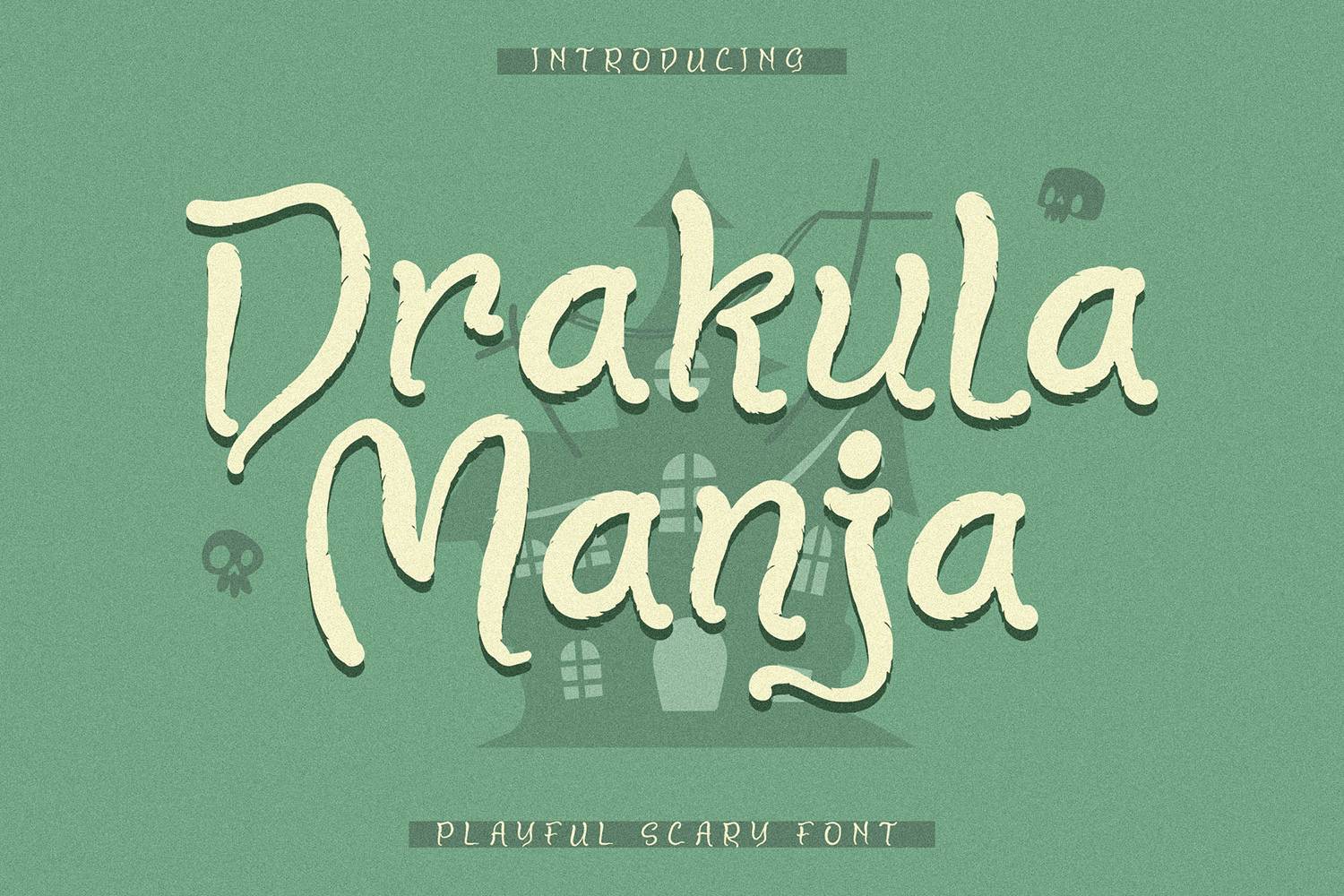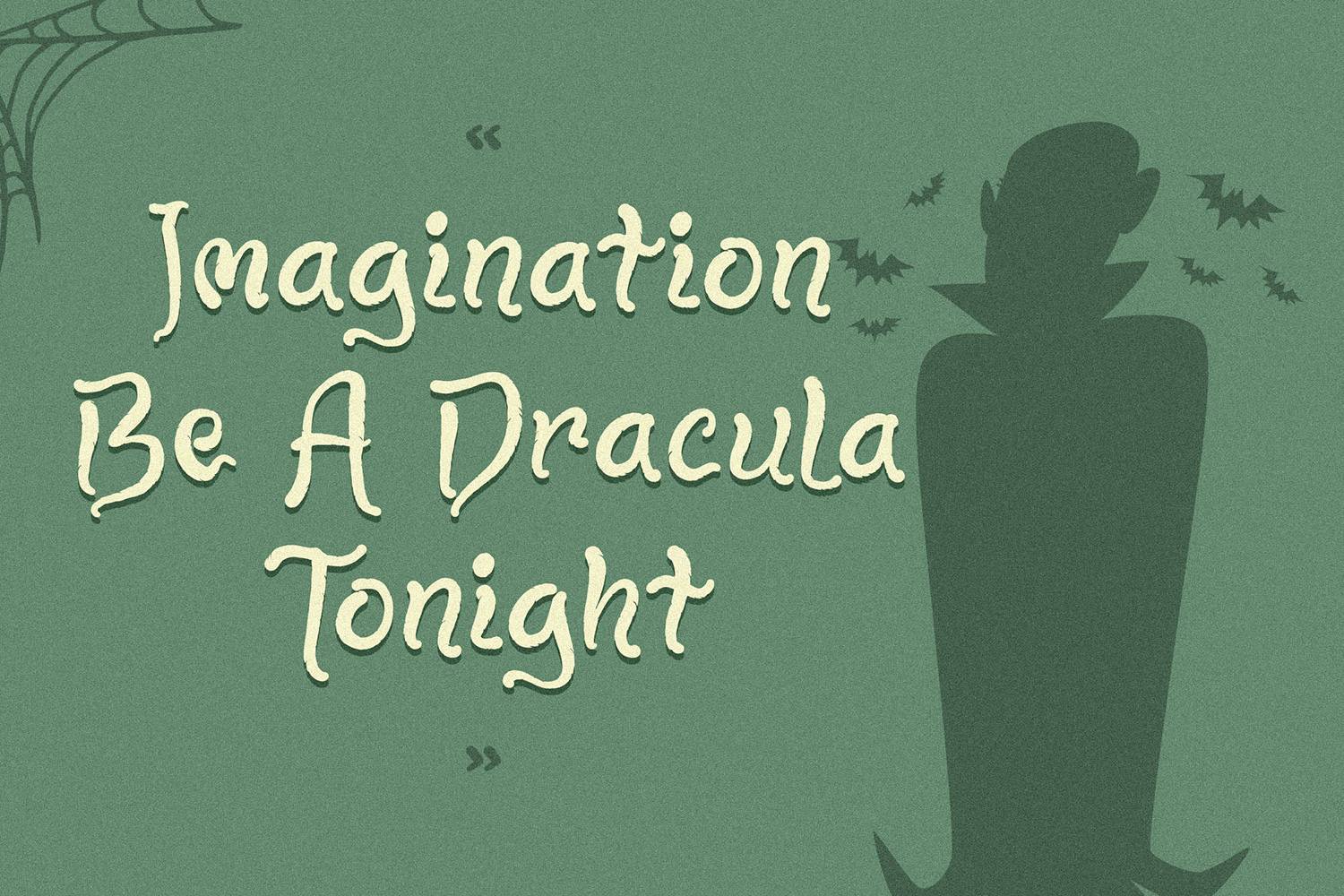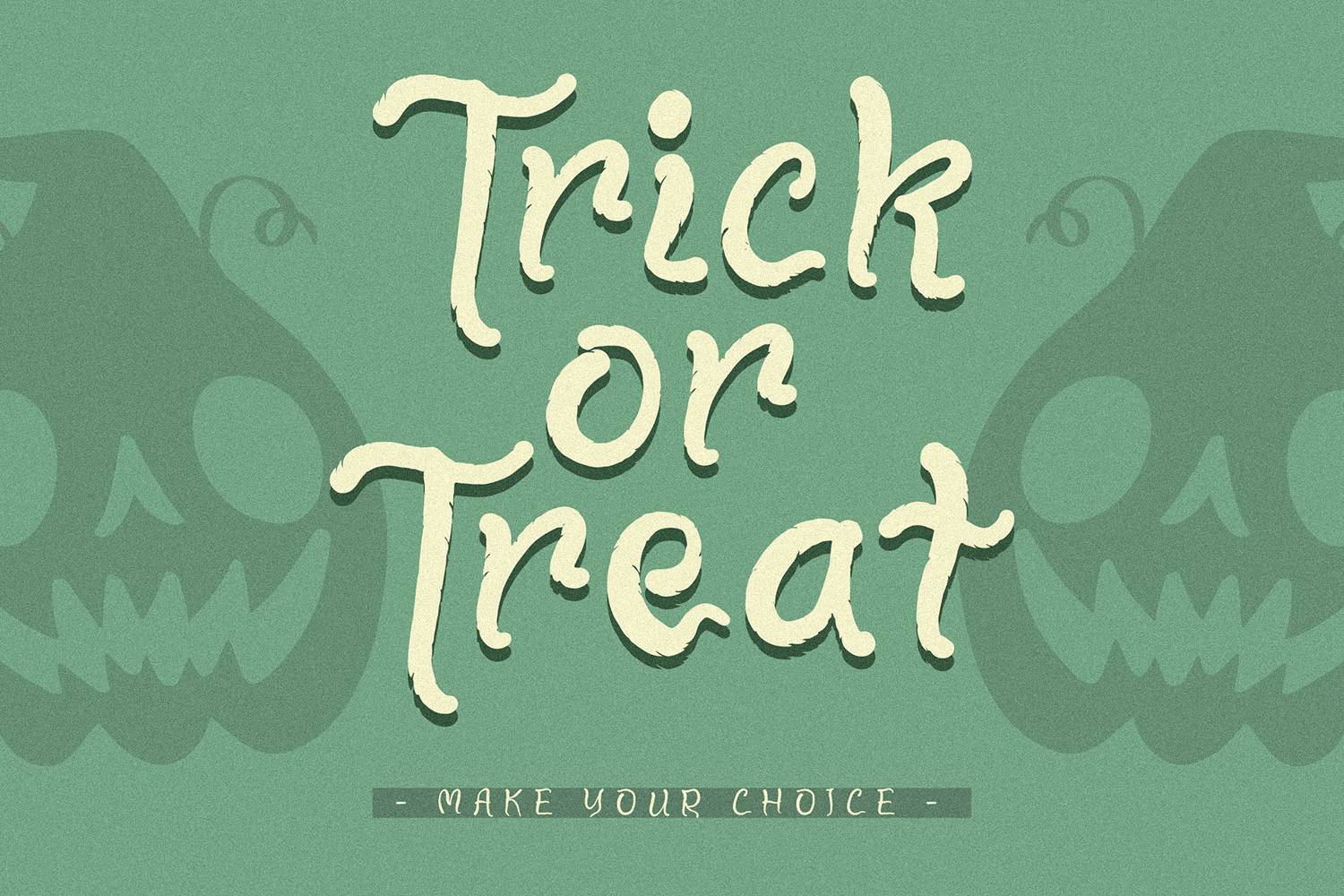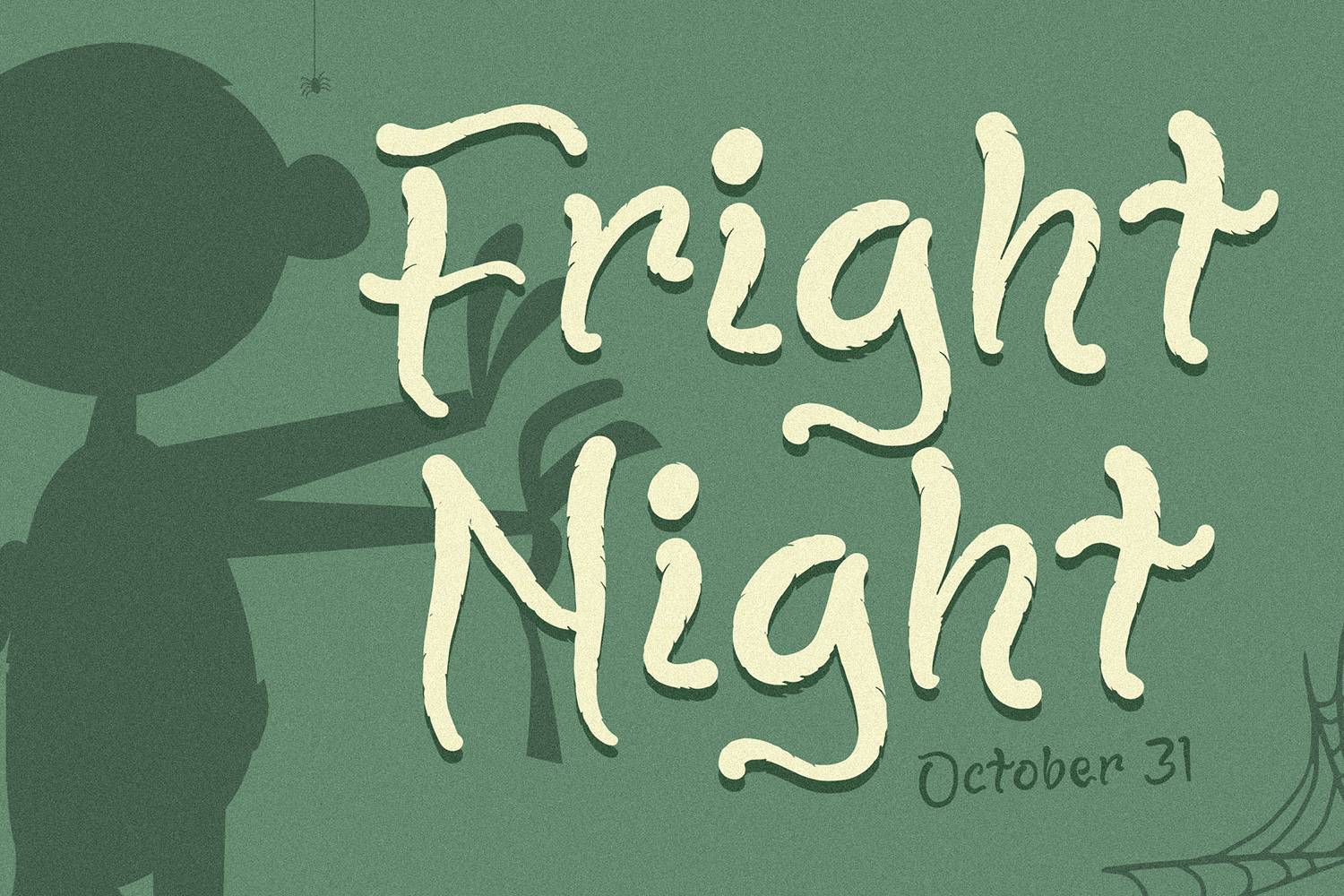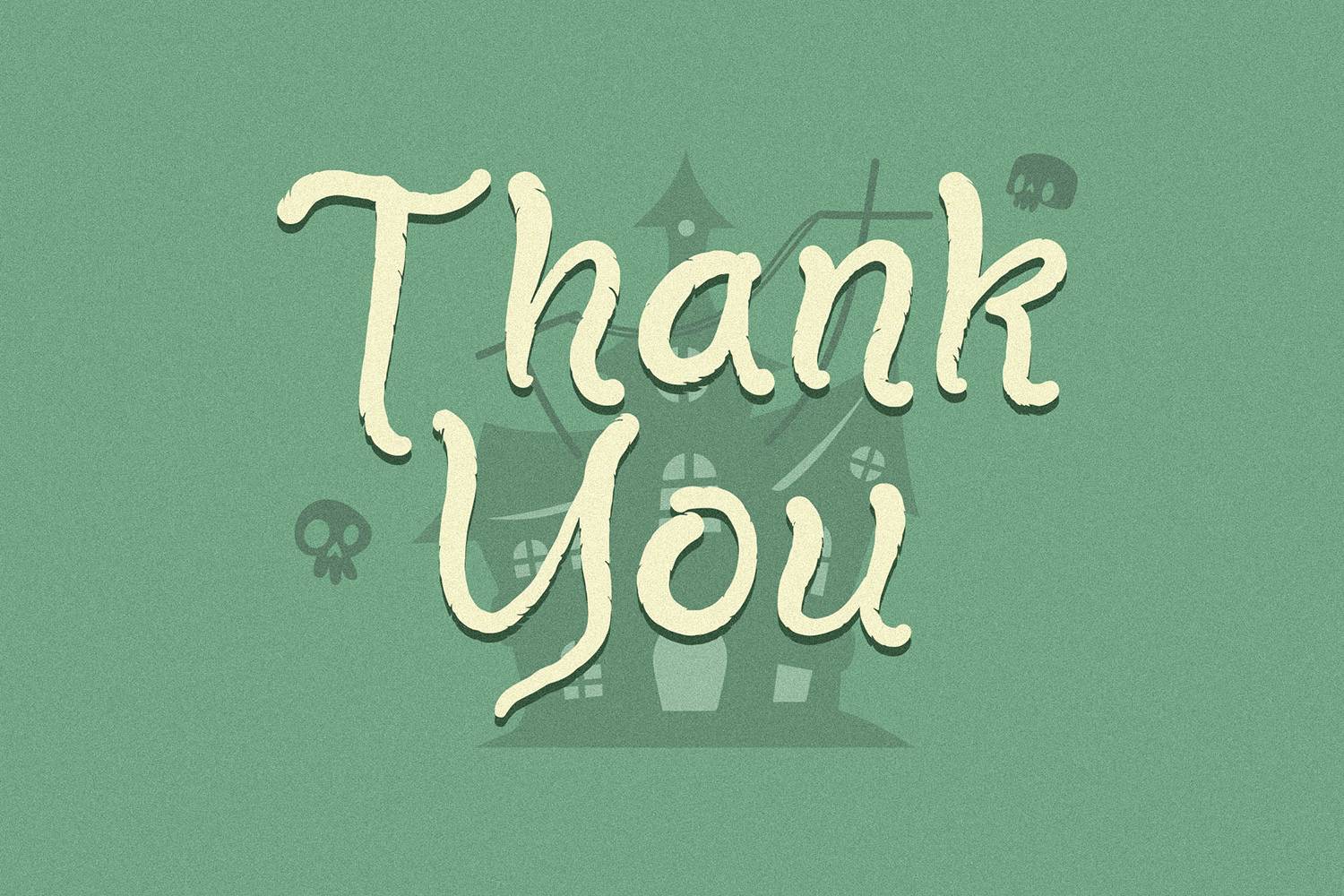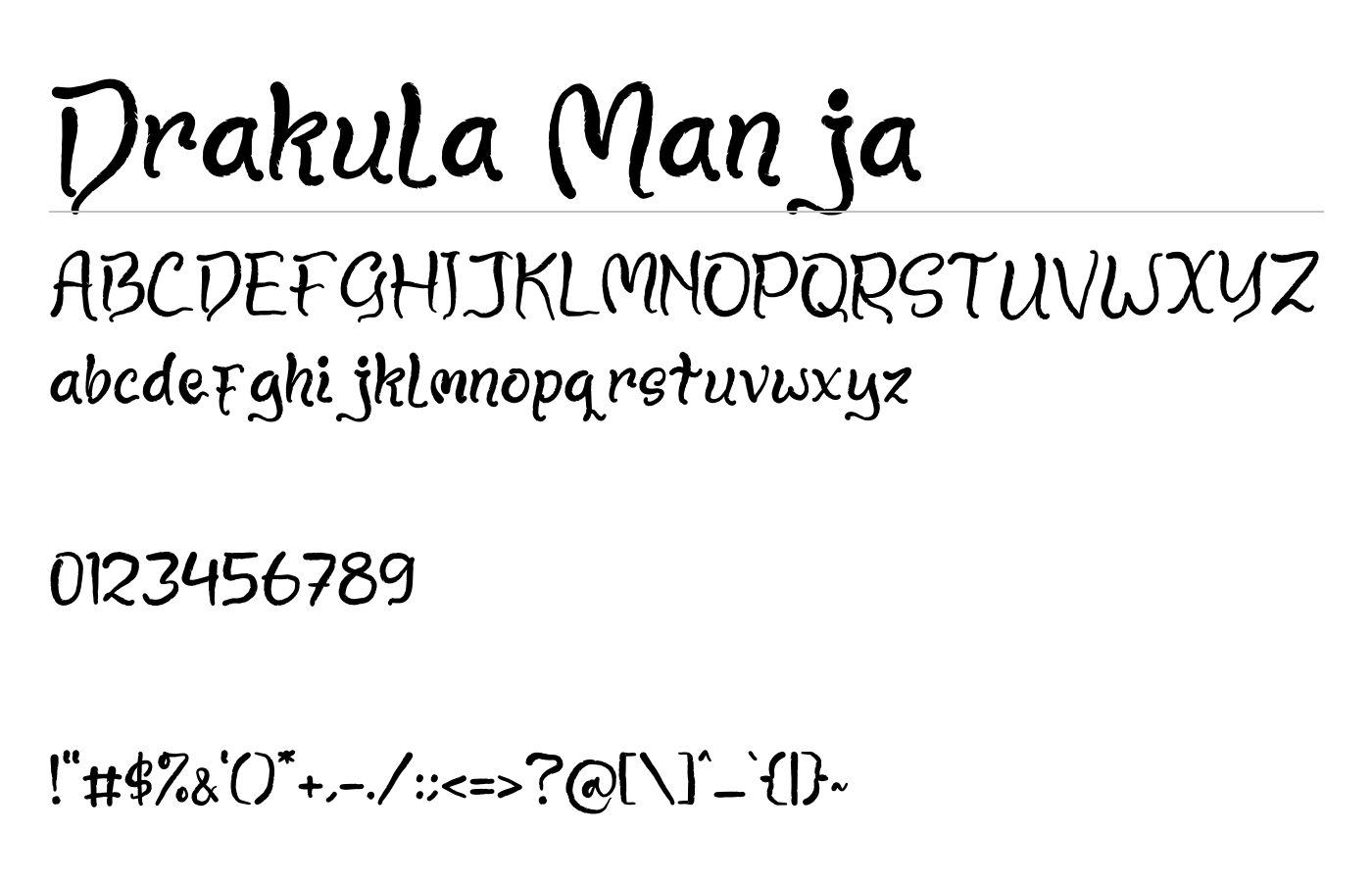
Drakula Manja is a playful, hand-drawn script font with irregular, slightly rough strokes that give it a quirky, casual feel. Its medium weight and moderate contrast, along with unique letter shapes, lend a lively, artistic vibe perfect for creative projects, informal branding, and fun headlines. This font works well where a personal, approachable touch is needed, making it ideal for invitations, posters, and quirky packaging.
Drakula Manja Font